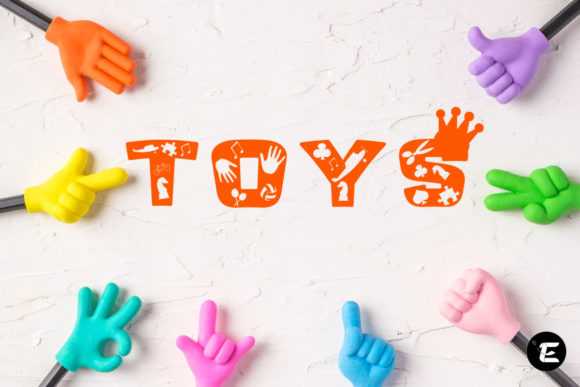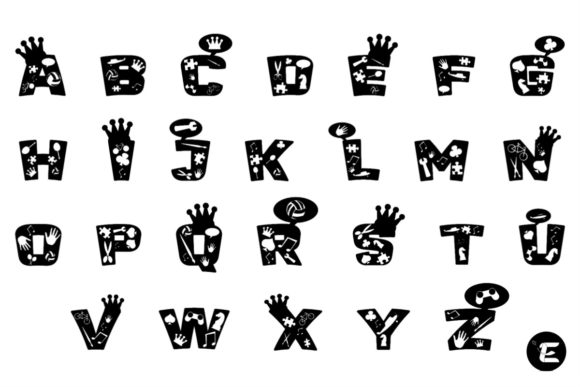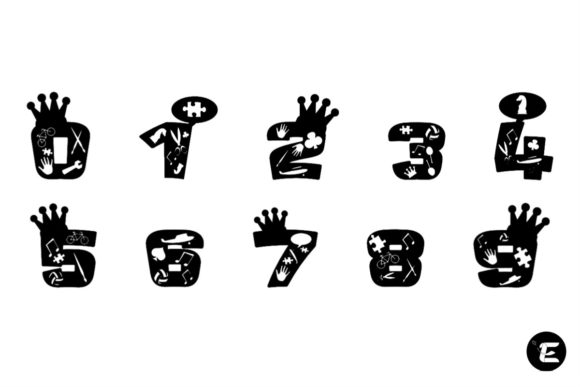
Introducing GAME: The Ultimate Cool and Playful Decorative Font
Are you tired of using the same old fonts for your designs, crafts, and presentations? Look no further! GAME is a cool and playful decorative font that’s about to become your go-to choice for any occasion. In this article, we’ll dive into the world of GAME font, exploring its features, uses, and benefits for designers and crafters alike.
What is GAME Font?
GAME is a unique and eye-catching decorative font designed to add a touch of fun and playfulness to your designs. Its cool and quirky style makes it perfect for a wide range of applications, from crafting and digital design to presentations and more. Whether you’re a professional designer or a DIY enthusiast, GAME font is sure to bring a smile to your face and inspire your creativity.
Key Features of GAME Font
- Playful and Decorative: GAME font boasts a fun and playful style that’s sure to grab attention and add a touch of personality to your designs.
- Versatile: This font is perfect for various applications, including crafts, digital design, presentations, and more.
- High-Quality: This font is designed with high-quality and clarity in mind, ensuring that it looks great in any context.
Uses of GAME Font
GAME font is an incredibly versatile font that can be used in a wide range of applications, including:
- Crafts: Add a personal touch to your handmade crafts, such as cards, gift tags, and scrapbook pages.
- Digital Design: Use GAME font to create eye-catching social media graphics, blog posts, and website headers.
- Presentations: Make your presentations more engaging and fun with GAME font.
- Signage: Create attention-grabbing signs and posters with this playful font.
Benefits of Using GAME Font
So, why choose GAME font for your designs? Here are just a few benefits:
- Adds Personality: GAME font brings a unique and playful touch to your designs, setting them apart from the rest.
- Increases Engagement: The fun and quirky style of GAME font is sure to grab attention and keep your audience engaged.
- Versatile: This font can be used in a wide range of applications, making it a great addition to your font library.
Tips for Using GAME Font
To get the most out of GAME font, here are a few tips:
- Experiment with Colors: Try pairing GAME font with different colors to create unique and eye-catching combinations.
- Mix and Match: Combine GAME font with other fonts to create interesting and dynamic designs.
- Play with Size: Experiment with different font sizes to add emphasis and create visual interest.